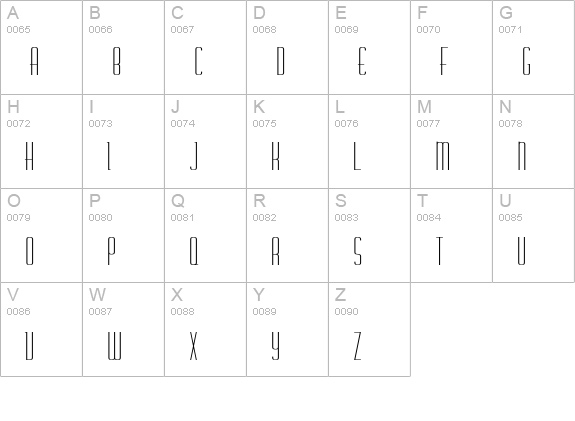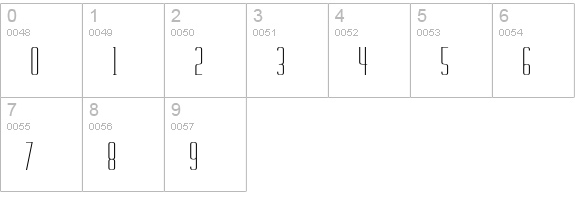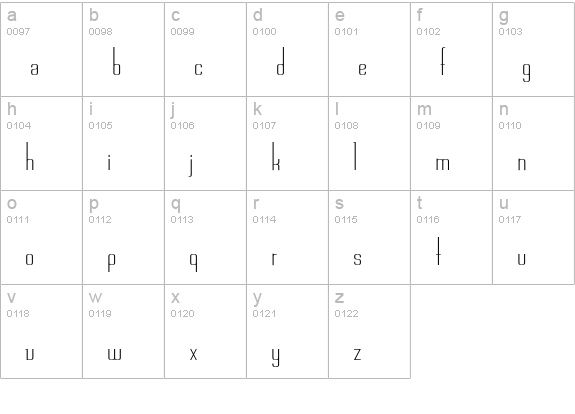
Chasline Font Details
Chasline font is a beautifully crafted typeface that combines elegance and modernity. With its stylish curves and clean lines, this font is perfect for a wide range of design projects, from branding to advertising. The sleek letterforms make a bold statement while still maintaining a sense of sophistication. What's more, Chasline font is available for free! You can download it at FontsMarket.com and start using it in your designs right away. Whether you're working on a logo, website, or print materials, Chasline font will add a touch of class and professionalism to your work. Don't miss out on this fantastic opportunity to enhance your design projects with this stunning typeface.